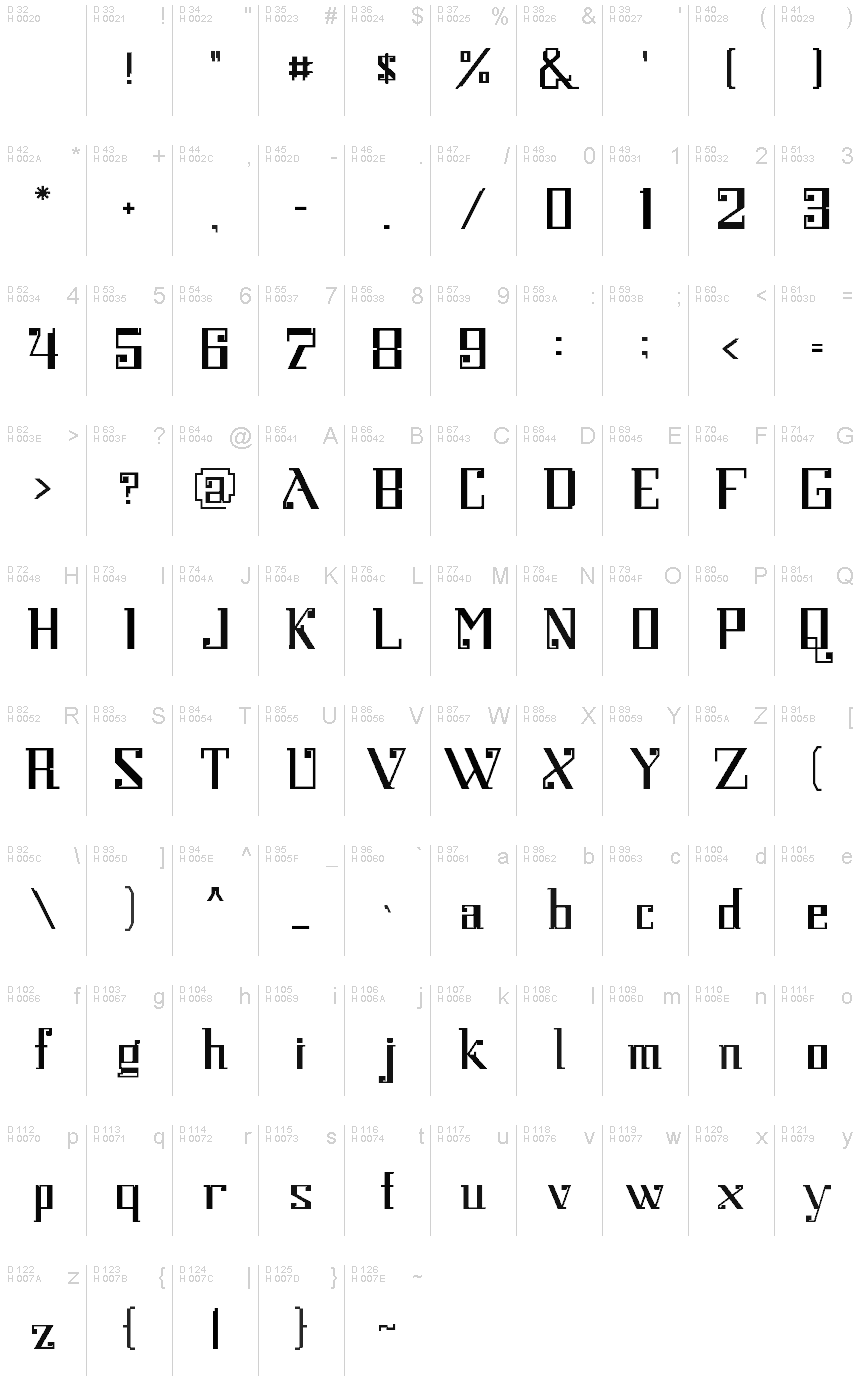
DecoTech
DecoTech font by Putracetol Studio is a free techno typeface with sharp, squared geometry and a sleek, machined rhythm. Its tall stems and hard corners feel like they’ve been cut from metal panels, giving words a clean, futuristic snap even at a glance.
Using DecoTech, you’ll get punchy headlines for gaming titles, sci‑fi posters, tech event flyers, esports branding, app splash screens, product packaging, and YouTube thumbnails. Keep DecoTech larger for impact, then pair it with a calm sans like Inter or Helvetica for body copy so the angular energy stays crisp and readable in this free font.